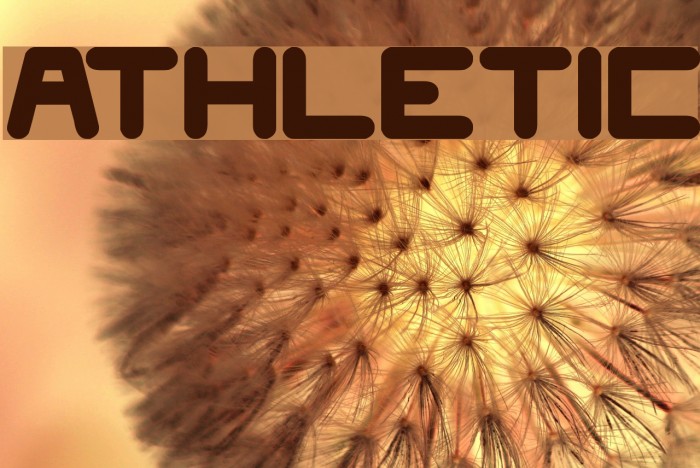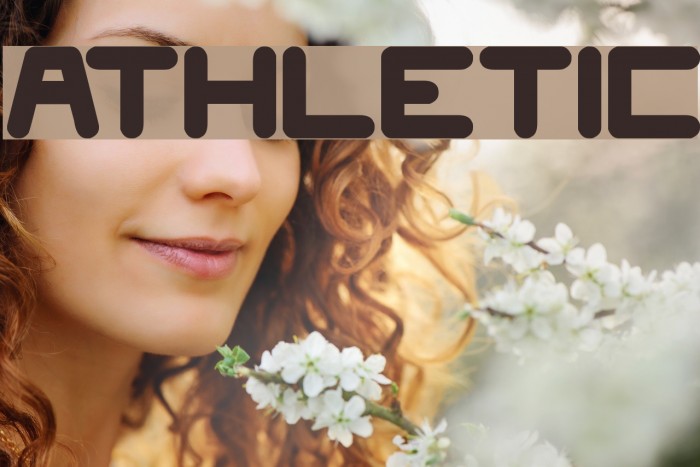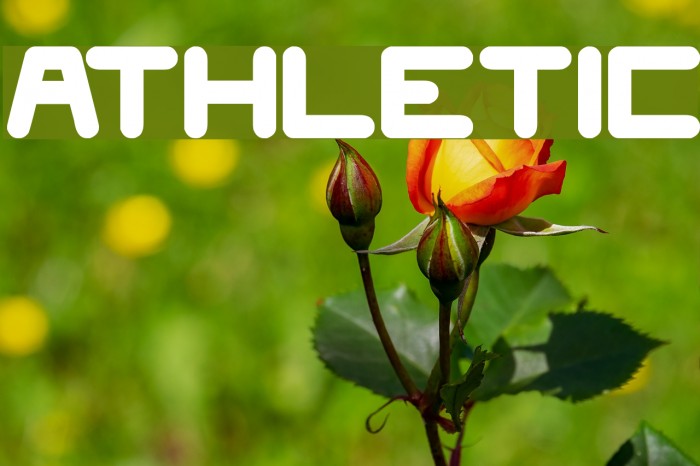
athletic Font
This font features a bold, geometric design with rounded edges, giving it a modern and sporty appearance. The characters are uniformly thick, providing a strong visual impact. The uppercase letters are consistent in height, while the lowercase letters maintain a similar width, ensuring a cohesive look. The numbers and special characters follow the same design principles, making them easily recognizable and harmonious with the alphabet. The overall style is clean and contemporary, suitable for projects that require a dynamic and energetic feel.
A bold, geometric font with rounded edges and a modern, sporty look.
- Proposed Projects: Ideal for sports branding, athletic apparel, event posters, and dynamic logo designs.